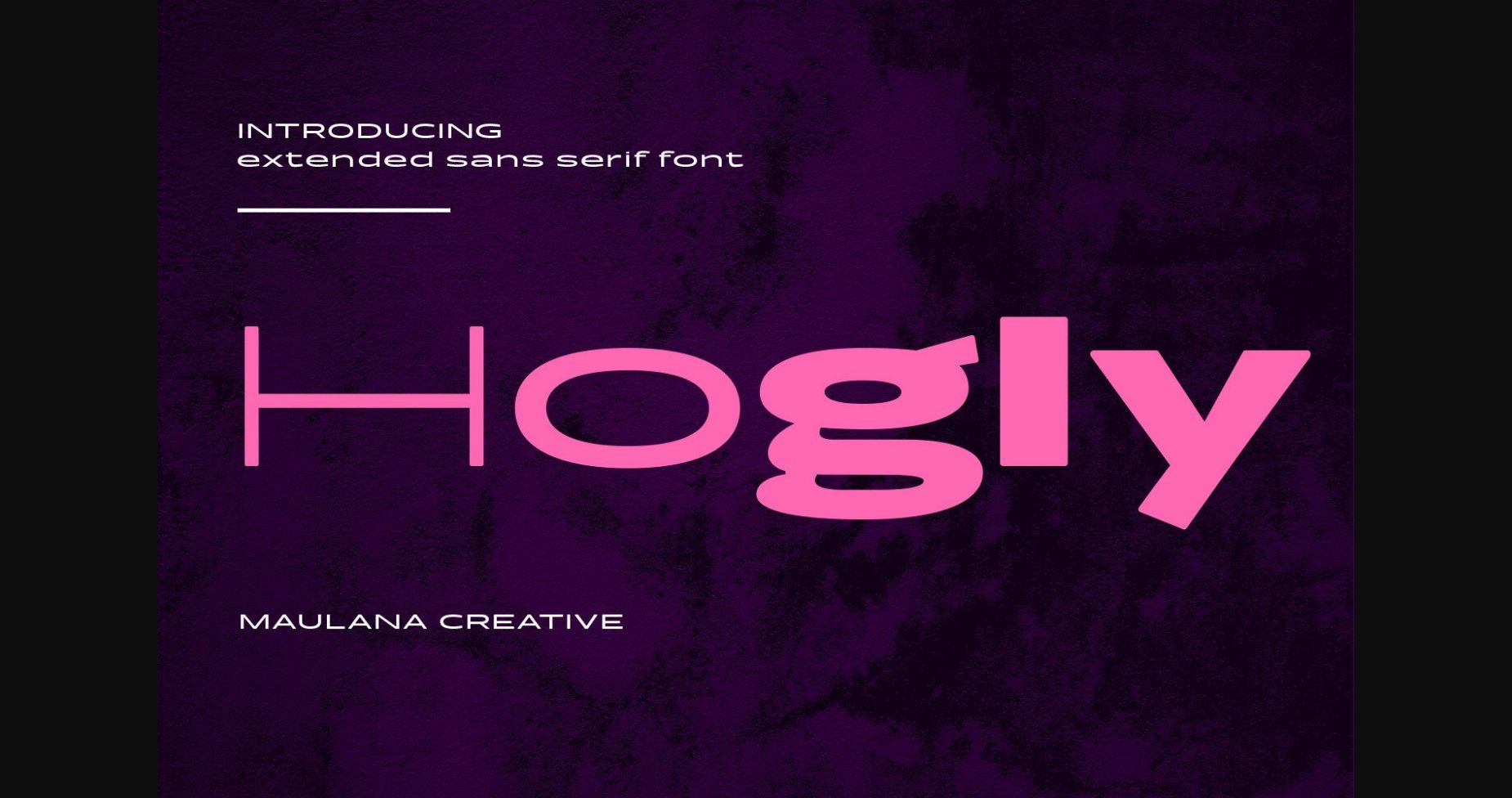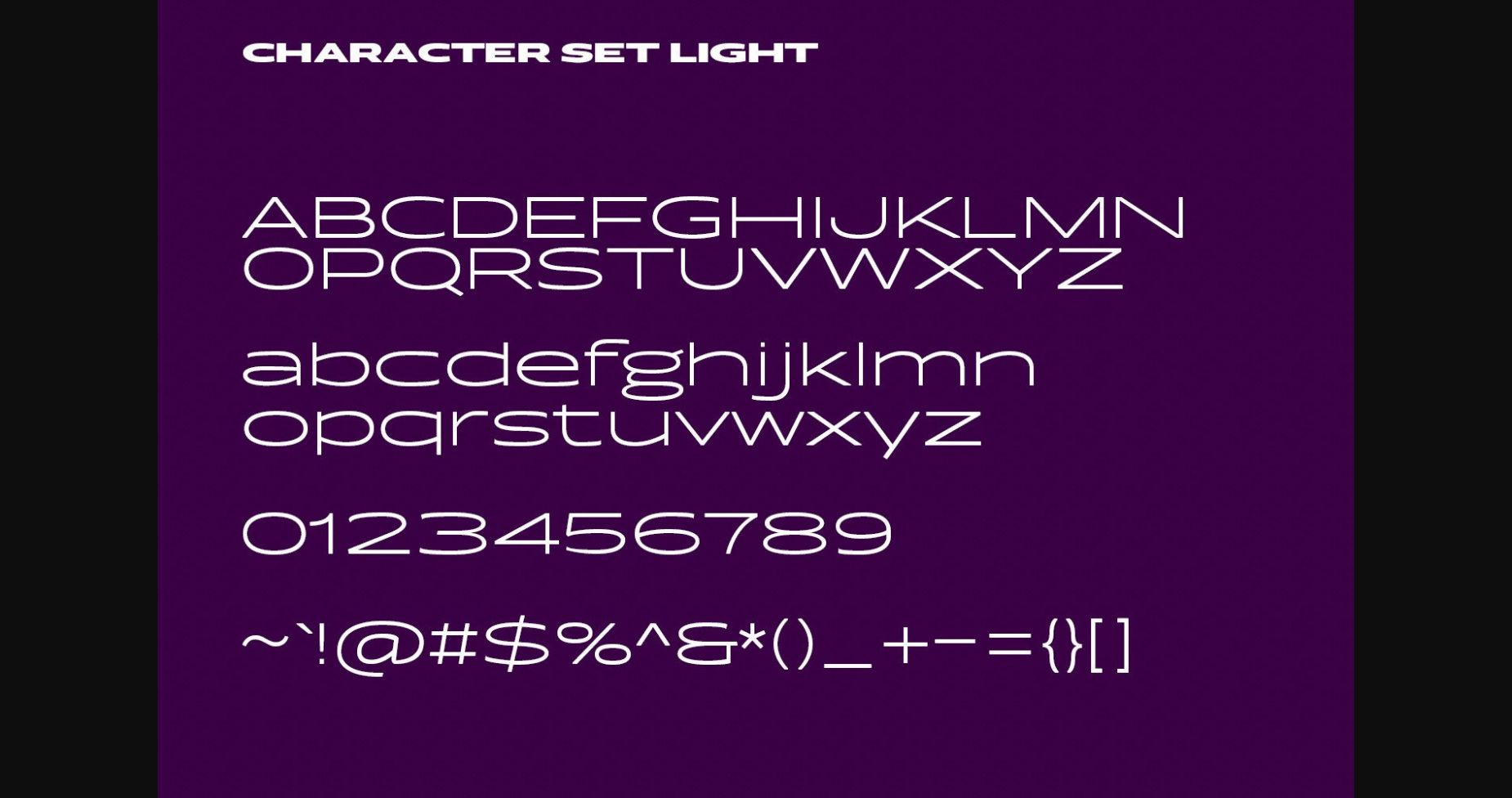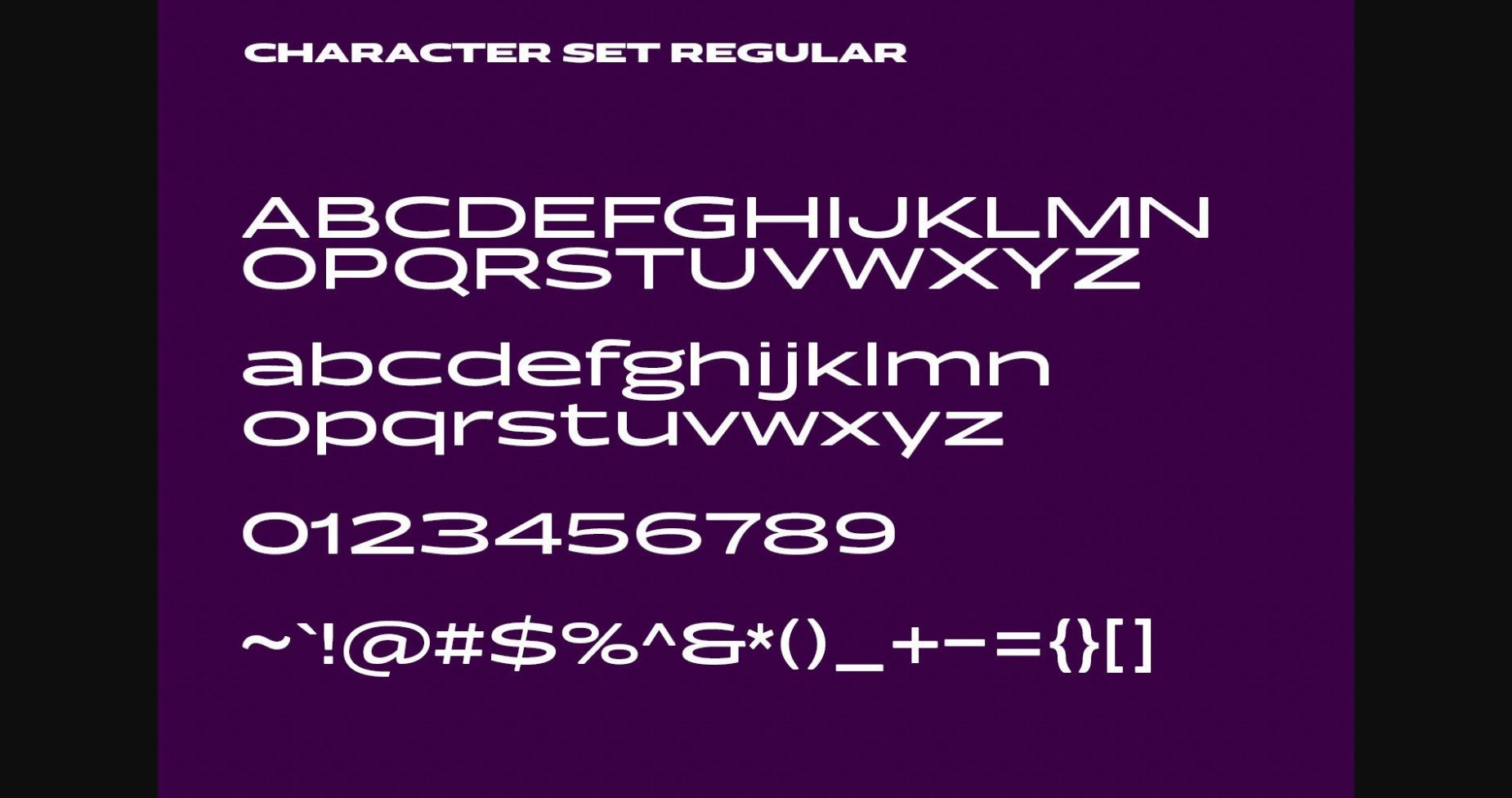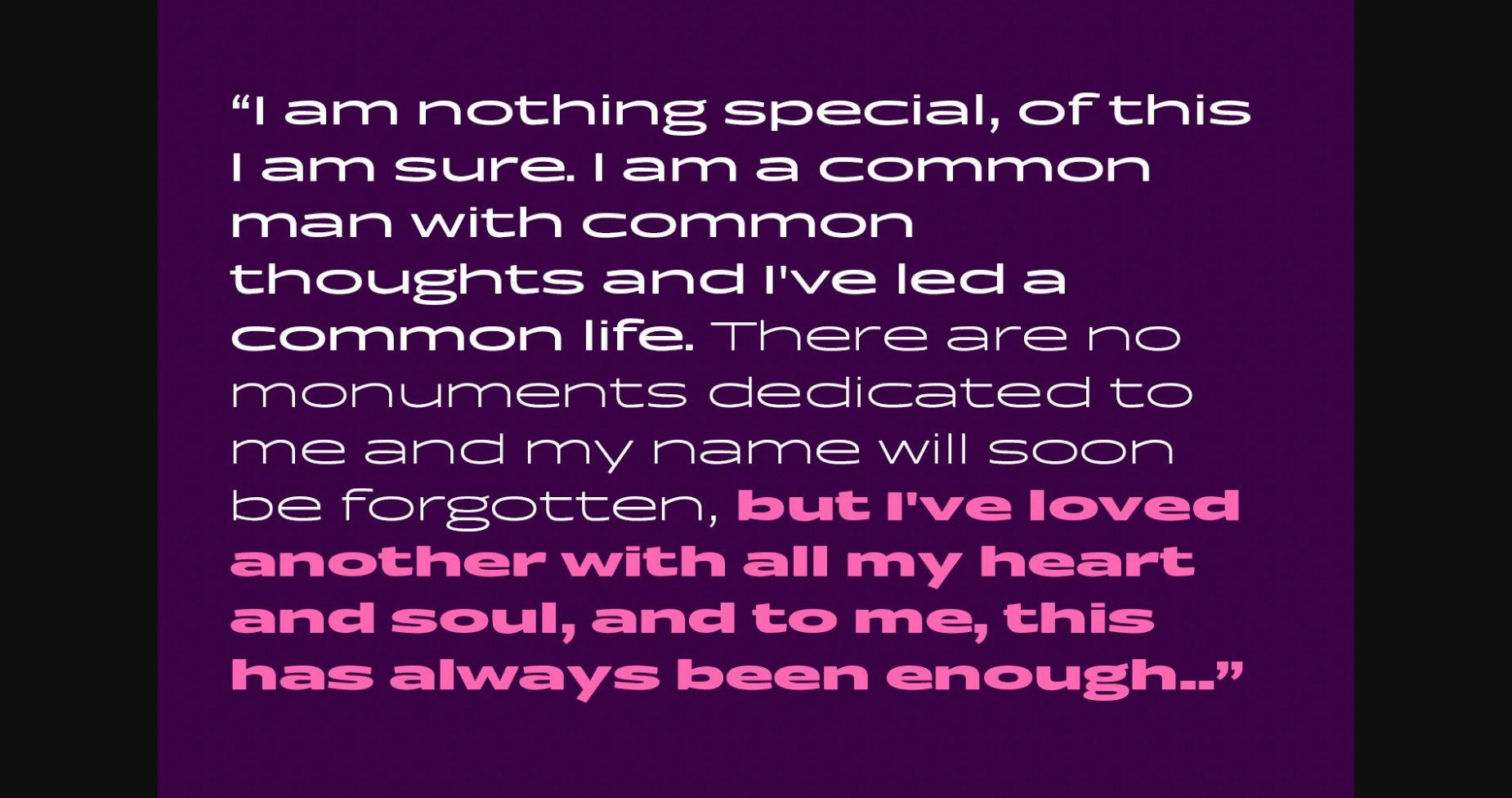
About Hogly Font
Hogly is a modern wide sans serif font featuring unique strokes and a fun character to give you extra creative work. Hogly is good for logo design, Social media, Movie Titles, Books Titles, short text, and even long text, and good for your secondary text font with script or serif. Make stunning work with Hogly font!